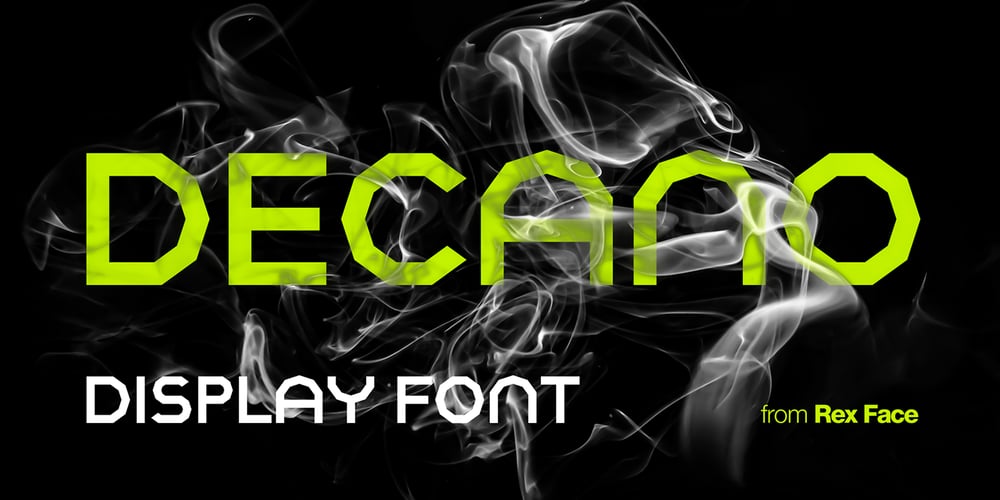
Decano
Decano font
Decano Font Family was designed by Tim Rex and published by Rex Face. Decano contains 1 styles and family package options. Decano is a modern sans serif, ALL-CAPS, display font. Using a ten-sided polygon, or decagon for the usually circular characters and employing similar angles for the rest of the character set gives us some strong and interesting word forms. It’s great for branding, headlines, and signage.